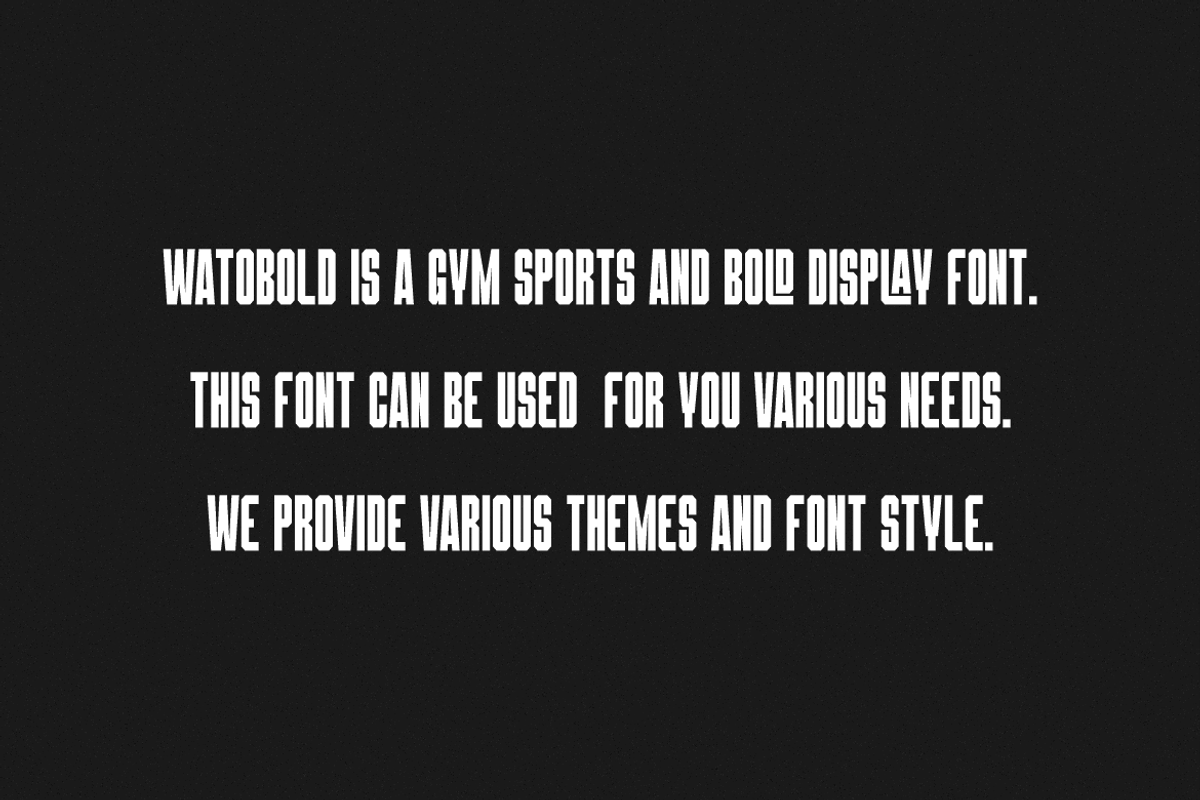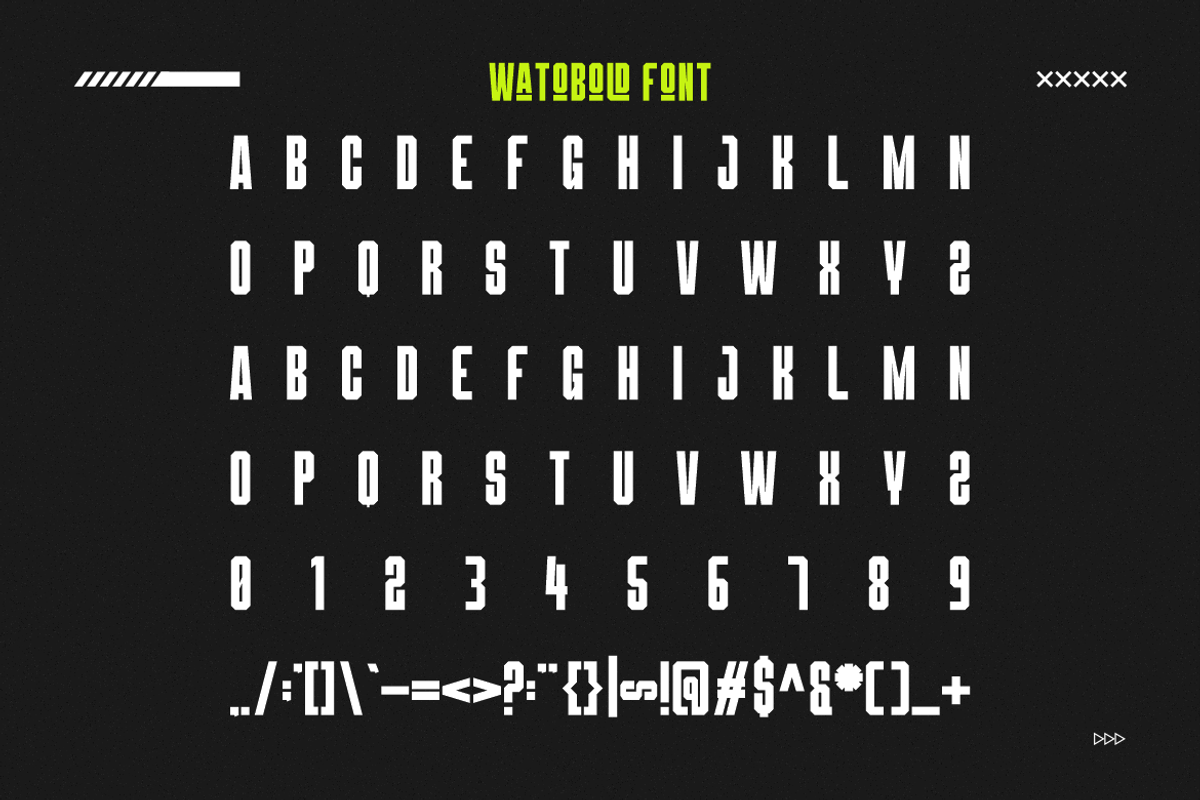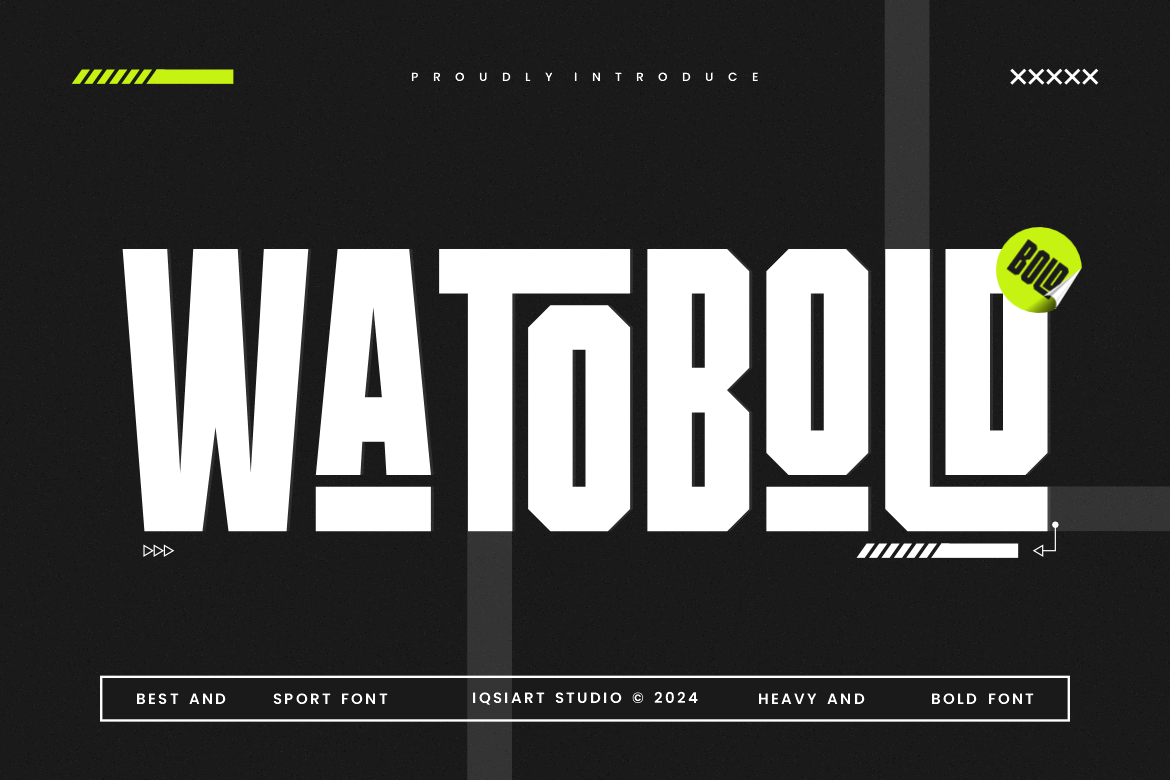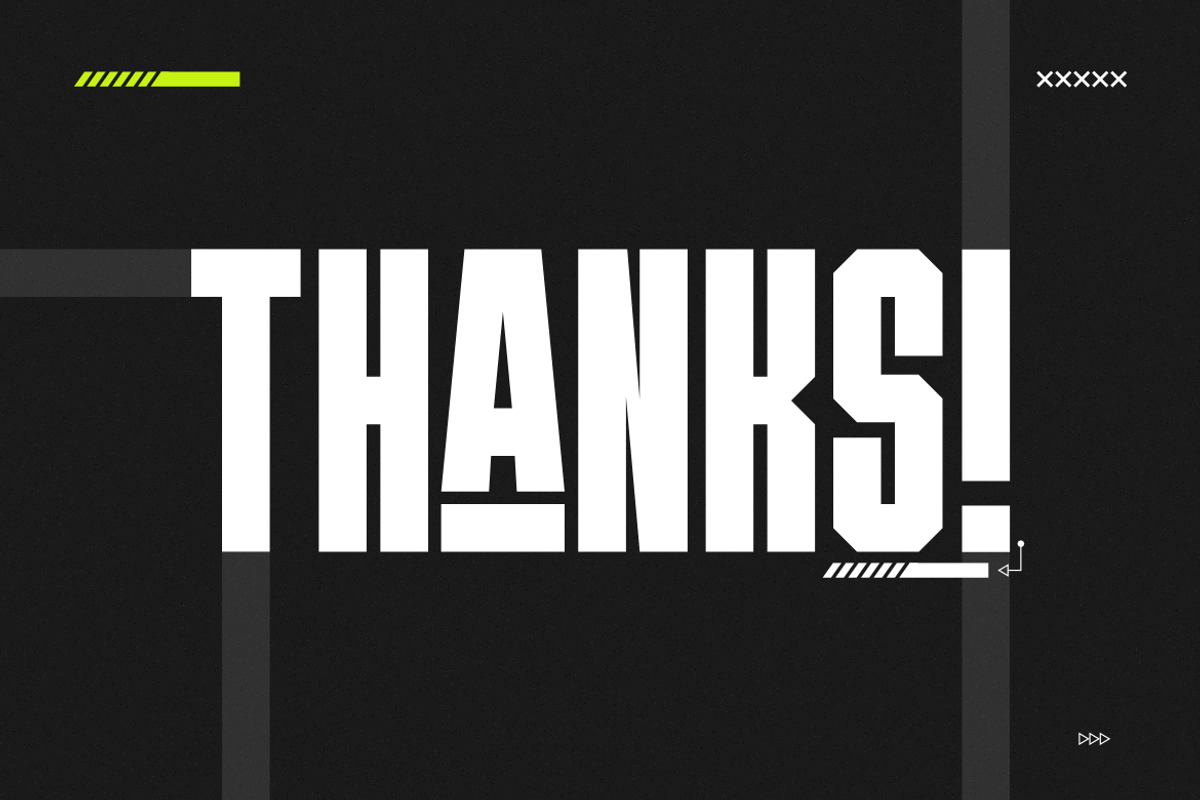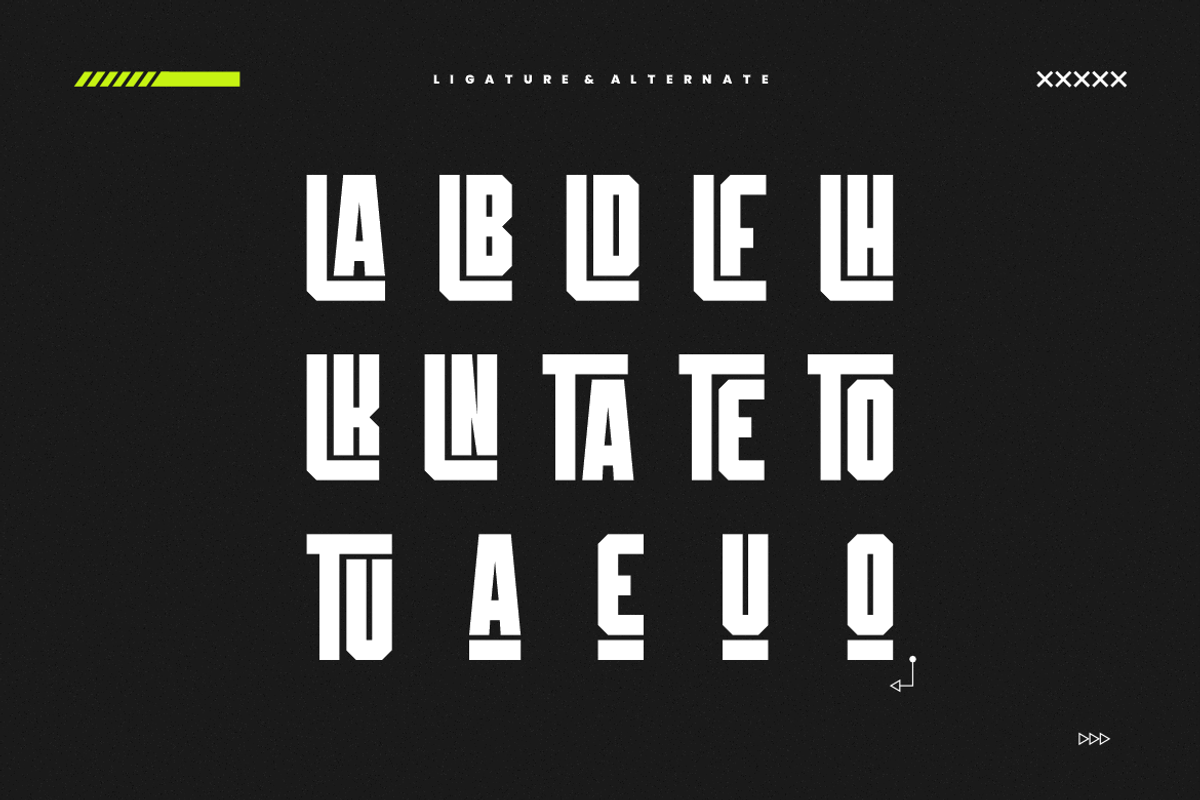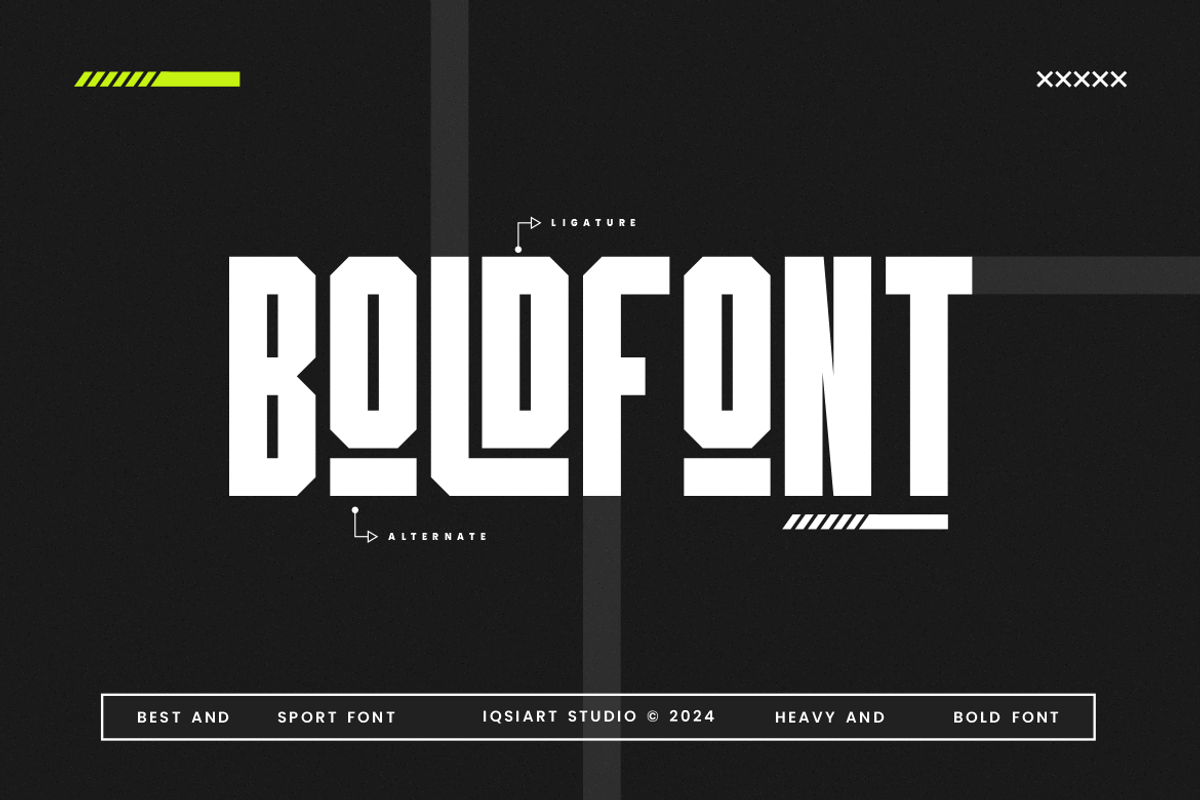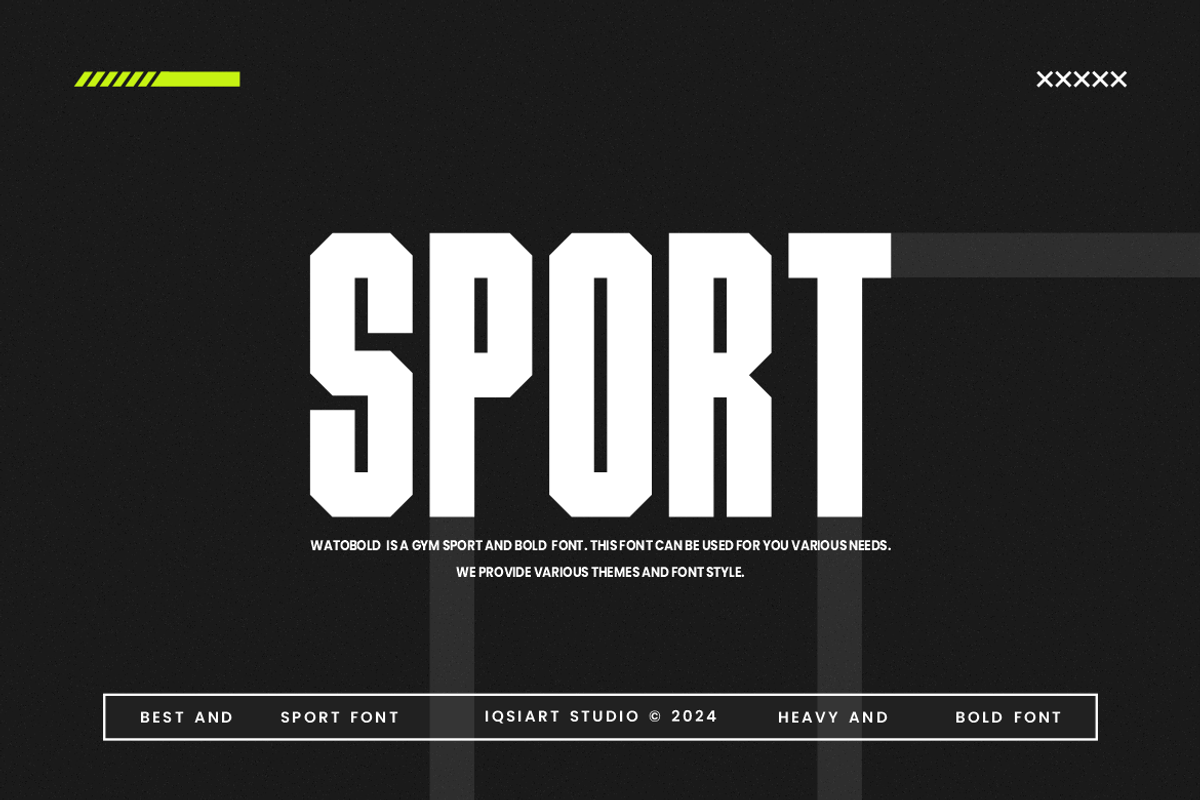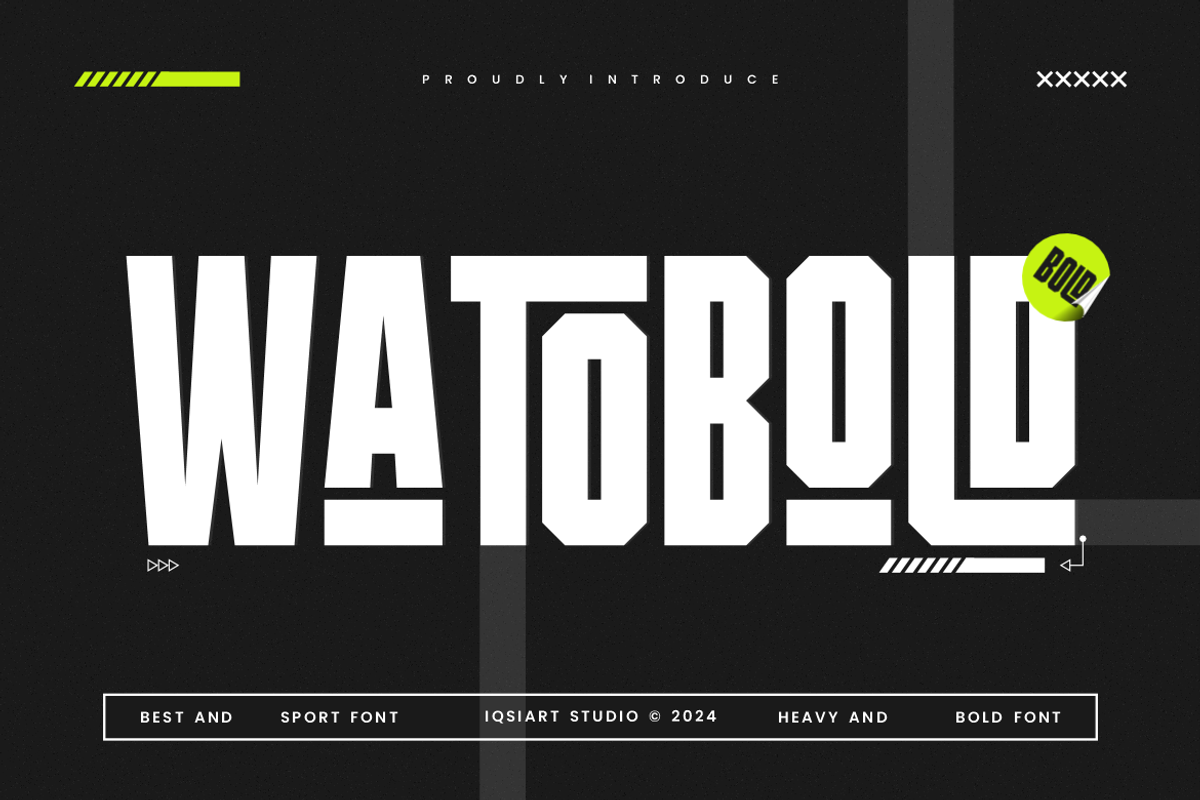
Watobold - Sport Tall Font
Watobold Font is a best and authentic display font. This font can be used for your various needs. We provide various themes and font styles. visit our profile to get a wide variety of themes and different font styles you need.